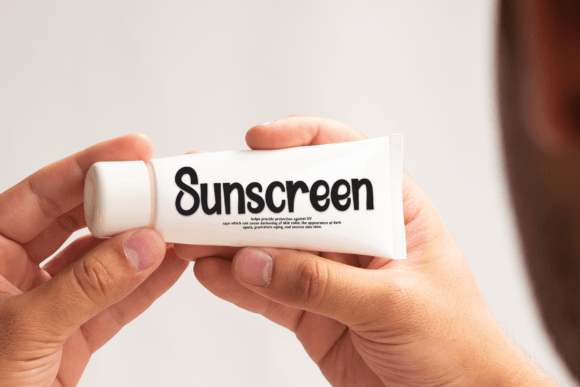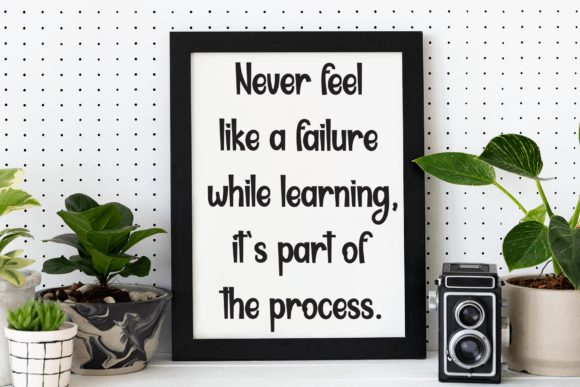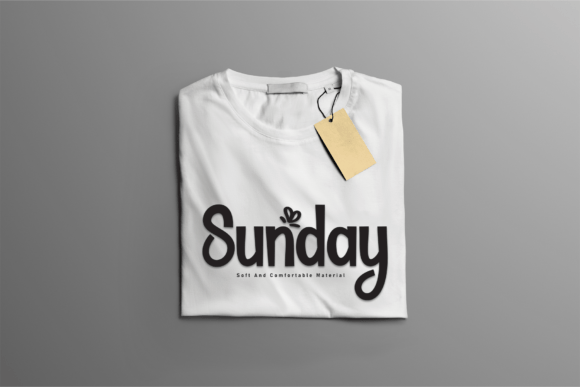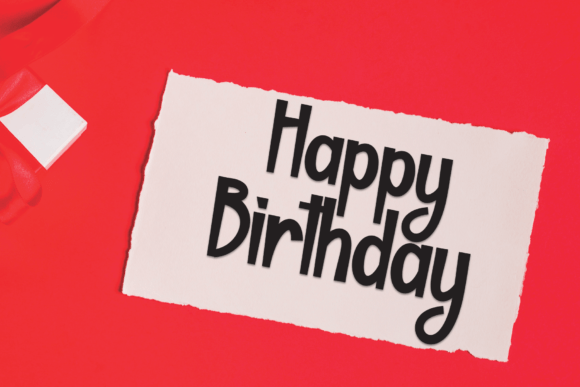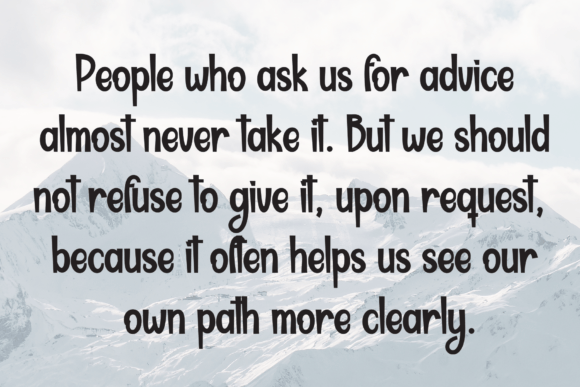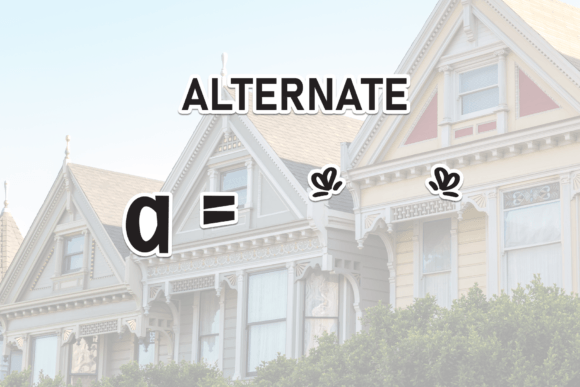
Unleashing Whimsy with the Good Mansion Font
Have you ever found yourself rummaging through your stash of stationery, searching for the perfect pen to match the mood of your creative project? That’s exactly what happened to me when I stumbled upon the Good Mansion Font – a sweet and friendly handwritten font that instantly put a smile on my face. Its carefree charm is the perfect antidote to a day spent staring at screens.
Good Mansion Font is more than just a pretty face; it’s a valuable tool for designers looking to add a touch of whimsy to their designs. Whether it’s a wedding invitation, a birthday card, or a social media graphic, this font is sure to bring a sense of fun and playfulness to your creations. Its versatility makes it a must-have for any designer looking to add a personal touch to their work.
Good Mansion Font Key Features
- Unique Characteristics: Good Mansion Font features a unique blend of modern and classic elements, with clean lines, elegant curves, and a touch of sophistication.
Good Mansion Font Review
Overall, I found the Good Mansion Font to be a solid choice for typography. Here are some of its strengths: ✨
- Unique aesthetic: Good Mansion Font has a distinct, luxurious feel that’s perfect for high-end branding.
- Highly customizable: The font offers a range of weights, from light to bold, making it easy to find the perfect fit for your design.
- Professional appearance: The font is well-crafted and has a polished look that’s sure to impress.
- Limited language support: Good Mansion Font may not support certain languages, which could be a issue for international brands.
- Not suitable for body text: The font is best used for headlines and titles, as its luxurious feel can be overwhelming for large blocks of text.
Overall, I think Good Mansion Font is a great choice for designers looking to add a touch of luxury to their branding. With its unique aesthetic and high level of customization, it’s a great option for logos, headings, and titles. Just be aware of its limitations and use it accordingly.
Getting the Most Out of Good Mansion Font
To get the most out of Good Mansion Font, use it for headings and titles in your design. It’s a bold and elegant font that works well for formal or business-related projects. Experiment with different font sizes and styles to create visual interest.
Good Mansion Font is commonly used for:
– Business cards and letterheads
– Menus and restaurant signage
– Event invitations and wedding stationery
– Corporate branding and marketing materials